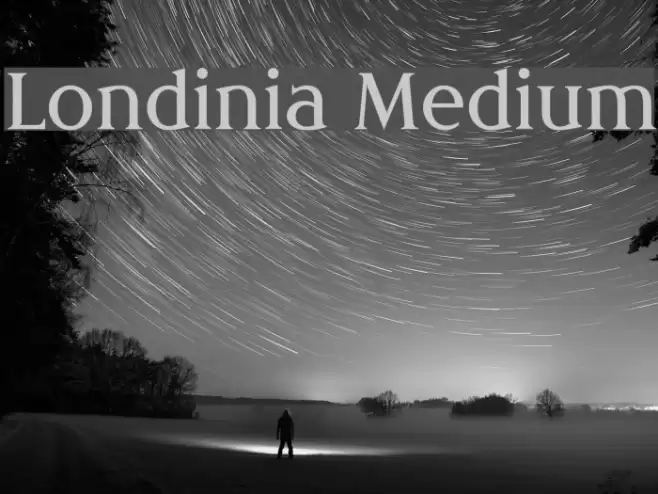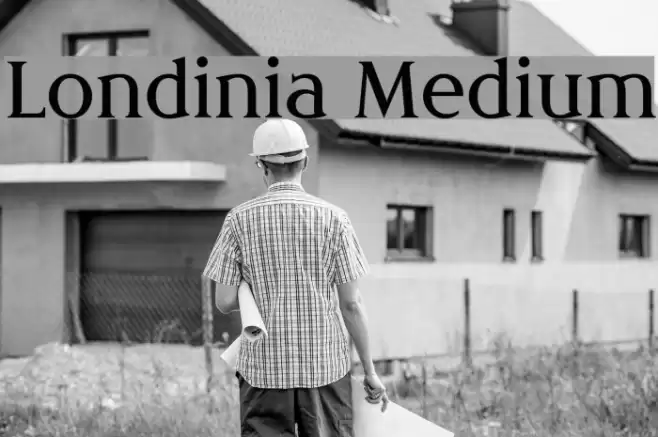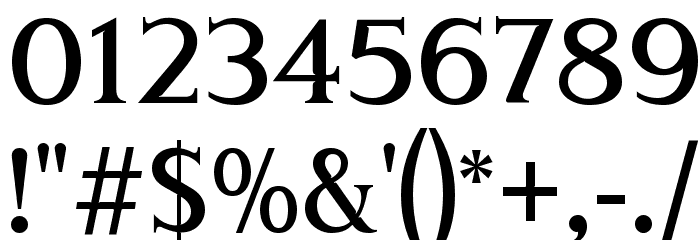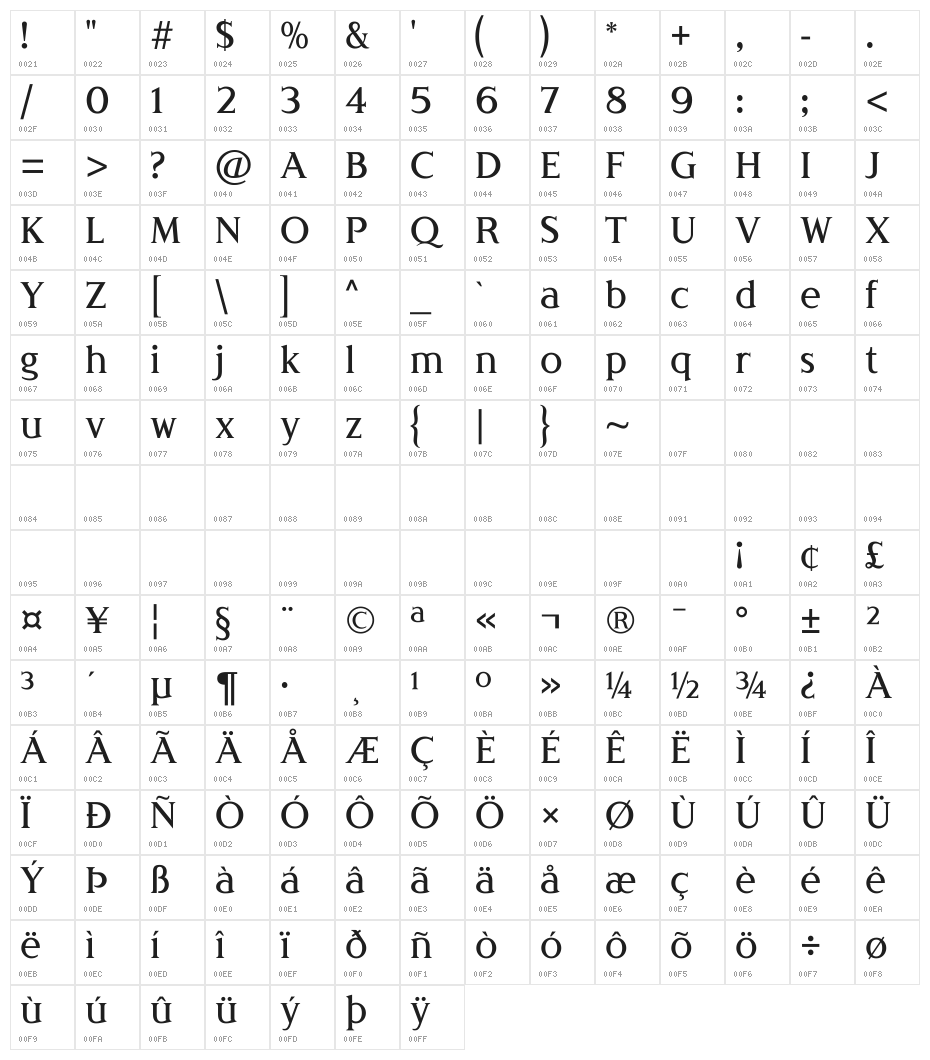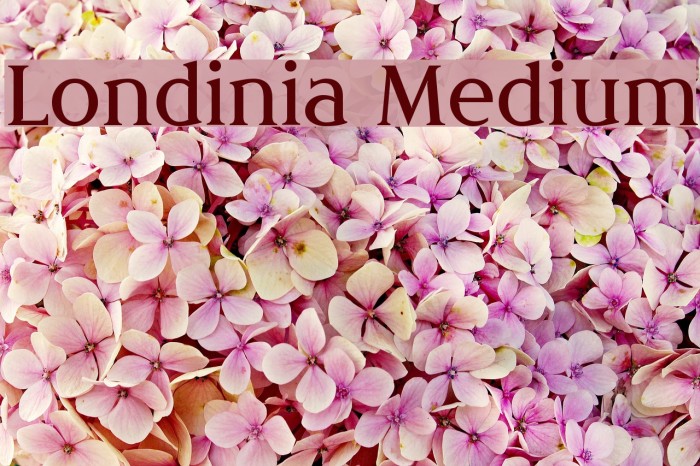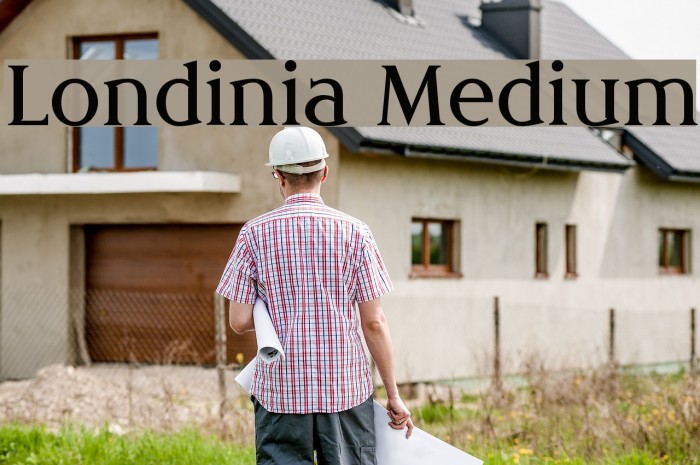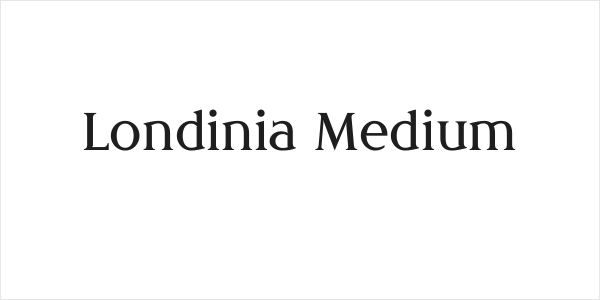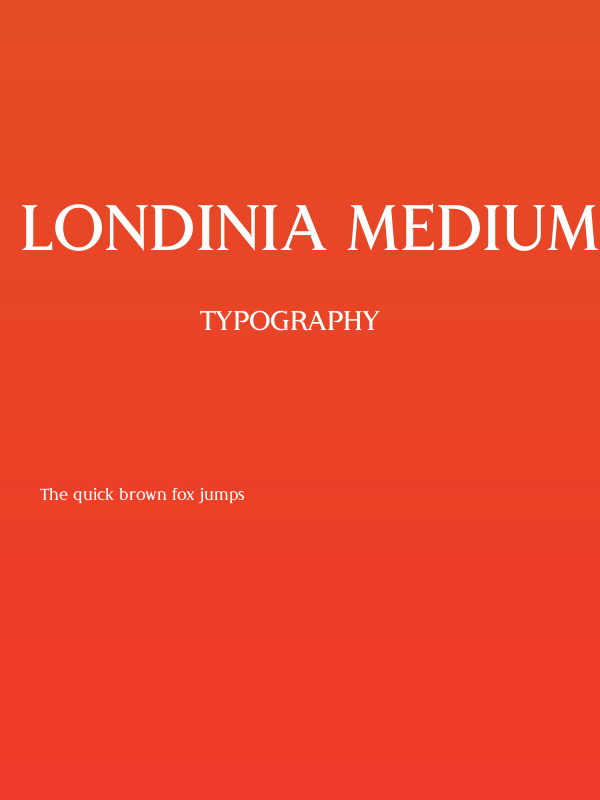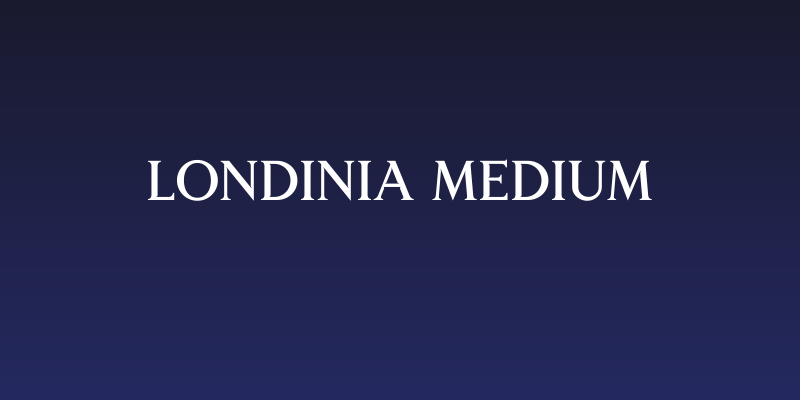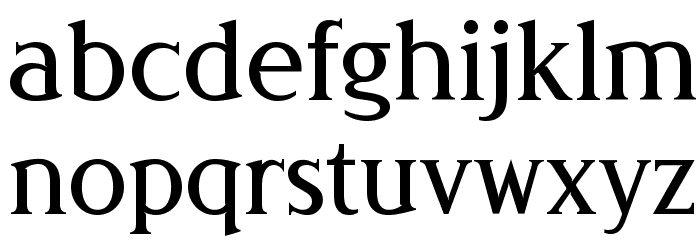
Londinia Medium Font
Londinia Medium Description
This font exhibits a classic serif style with elegant and refined strokes. The uppercase letters are bold and commanding, while the lowercase letters maintain a consistent and harmonious flow. The numerals are clear and well-proportioned, making them easily readable. Special characters are designed with a similar attention to detail, ensuring they complement the overall aesthetic. The font's medium weight provides a balanced appearance, suitable for both formal and informal contexts. Its timeless design makes it versatile for various applications.
A classic serif font with elegant strokes and balanced medium weight from Uncategorized fonts.
- Proposed Projects: Ideal for editorial design, book covers, formal invitations, and branding projects.
- Overall Style: Classic